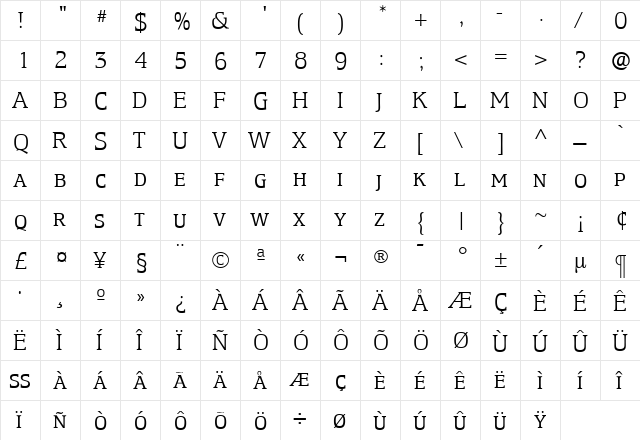
EquestrienneLightExpert Roman Font Preview
EquestrienneLightExpert Roman
Design Context for EquestrienneLightExpert Typeface
EquestrienneLightExpert offers clean, dependable letterforms without strong stylistic allegiance, making it a practical choice for designers who need flexibility. The delicate stroke weight brings airiness and refinement to layouts.